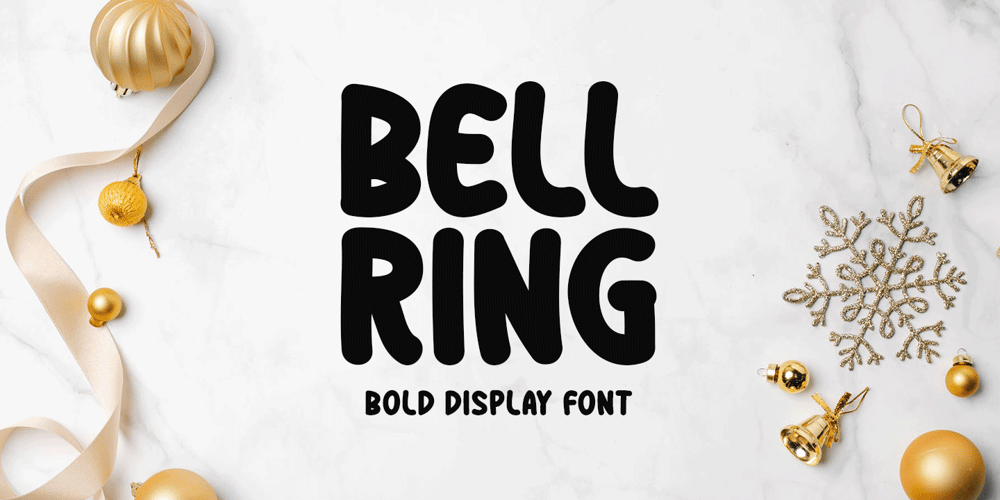
Bell Ring Font Family was designed by Md Shohail Bhuian and published by Seemly Fonts. Bell Ring contains 1 styles and family package options. Warmth and friendliness are at the heart of Bell Ring, a handwritten font that captures the essence of the season. Its distinct charm makes it an ideal choice for a wide spectrum of design projects, where your creativity knows no bounds.